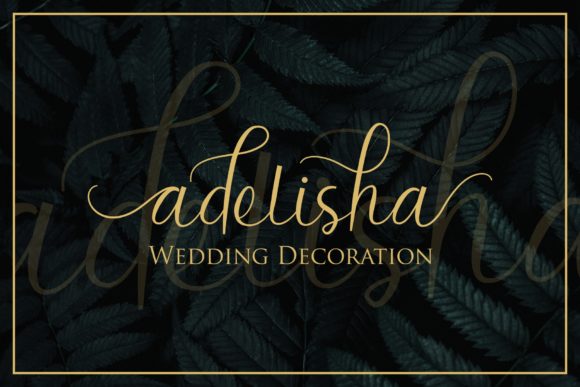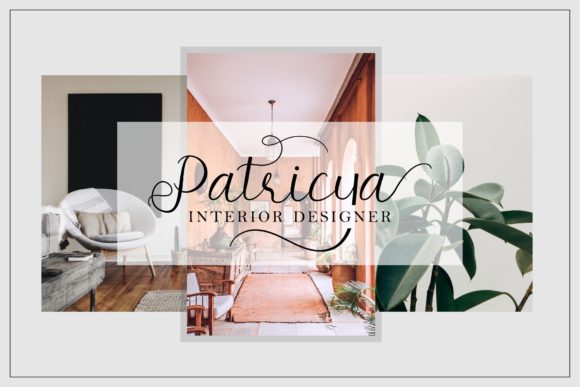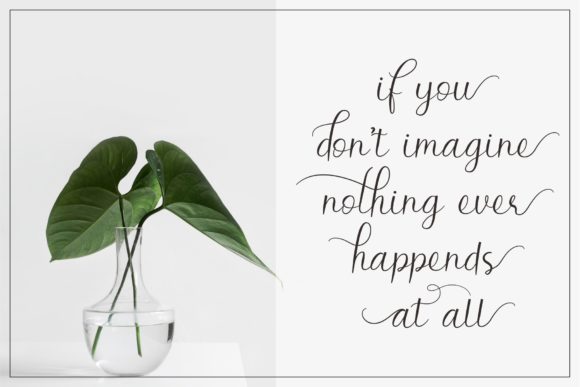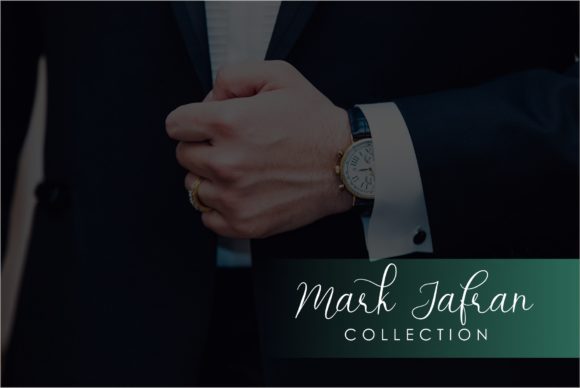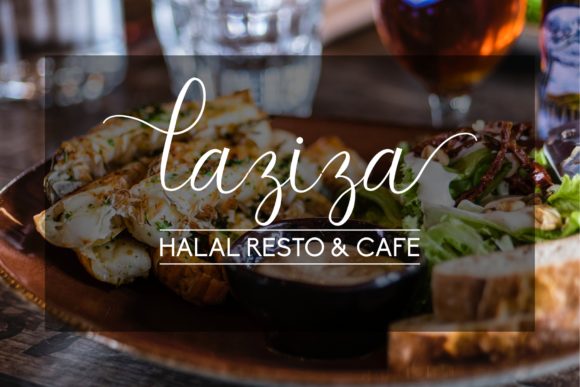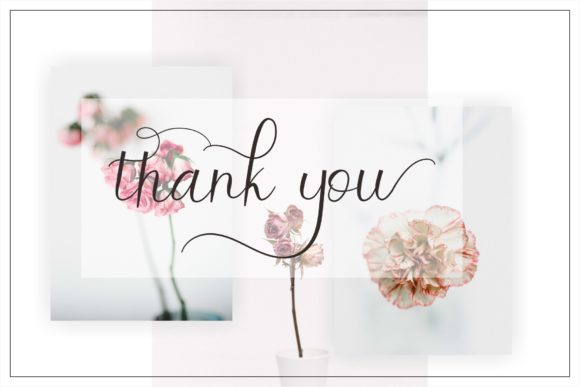
Introducing Empathy Font: Elevate Your Designs with Elegance and Sophistication
In the world of typography, fonts play a crucial role in conveying emotions and setting the tone for a design. For designers and crafters seeking to add a touch of elegance and sophistication to their work, the Empathy Font is an excellent choice. This beautiful script font boasts a classy, modern look that’s perfect for a wide range of applications, from logos and branding to invitations, stationery, and social media posts.
The Characteristics of Empathy Font
The Empathy Font is distinguished by its elegant and modern aesthetic, which lends itself well to designs that require a natural, handwritten feel. Its fluid strokes and harmonious letterforms evoke a sense of refinement and poise, making it an ideal selection for projects where a high level of sophistication is desired. Whether you’re working on a wedding design, a luxury brand’s logo, or a stylish invitation, this font is sure to impress.
One of the standout features of the Empathy Font is its versatility. Its adaptability allows it to be used across various platforms and design applications. Here are some of the many ways you can utilize this stunning font:
- Logos and Branding: Create a lasting impression with a logo that exudes elegance and professionalism.
- Invitations and Stationery: Add a touch of class to your wedding invitations, greeting cards, and other stationery items.
- Wedding Designs: From wedding cards to elegant backdrop designs, Empathy Font brings a romantic and sophisticated vibe.
- Social Media Posts: Elevate your social media content with stylish text that captures attention and conveys your message with finesse.
- Packaging and Product Design: Stand out in the market with beautifully designed packaging that reflects your brand’s personality.
Exploring Creative Possibilities
The Empathy Font truly comes alive when layered with different colors and turbidity levels. This technique allows designers to experiment with a multitude of styles and effects, effectively creating a million different feels from a single font. Here are some tips on how to make the most of this feature:
- Color Layering: Try combining the font with various colors to match your brand’s palette or to evoke specific emotions. For instance, soft pastels can create a whimsical feel, while bold and bright colors can make your design pop.
- Turbidity Effects: Adjusting the turbidity or opacity of the font layers can add depth and texture to your design. This is particularly effective in creating eye-catching effects for digital content or adding a vintage touch to print designs.
Why Designers and Crafters Love Empathy Font
Designers and crafters appreciate fonts that not only look great but also offer flexibility and ease of use. The Empathy Font checks all these boxes and more. Here are some reasons why it has become a favorite among creative professionals:
- Ease of Use: Despite its sophisticated appearance, the Empathy Font is surprisingly easy to work with, making it accessible to designers of all skill levels.
- High-Quality Output: The font’s clear and crisp appearance ensures that your designs look professional and polished, whether they’re intended for print or digital platforms.
- Emotional Connection: The elegant and modern look of the Empathy Font helps create an emotional connection with the audience, making your designs more impactful.
| Font Name | Empathy Font |
| Author | MJB Letters |
The Empathy Font is more than just a script font; it’s a design tool that can elevate your projects to new heights of elegance and sophistication. Its versatility, combined with the endless creative possibilities offered by layering and styling, makes it an invaluable asset for designers and crafters. Whether you’re looking to create stunning logos, beautiful invitations, or captivating social media posts, the Empathy Font is your go-to choice for adding that special touch of class and refinement.